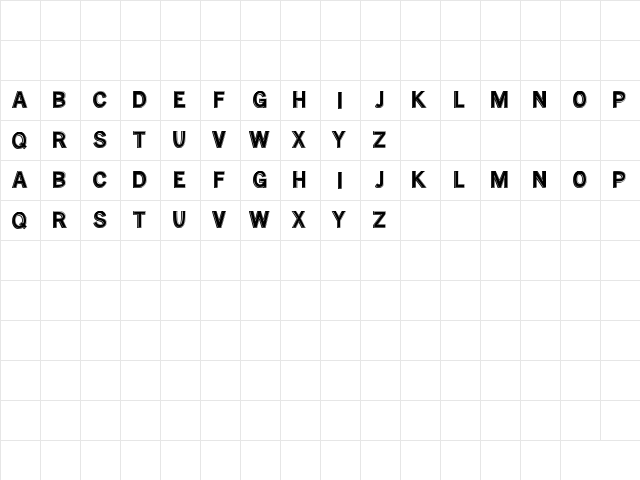
MTF Base Outline Regular
Design Context for MTF Base Outline Typeface
MTF Base Outline brings ornamental detail and strong personality to headlines and identities, where visual impact matters more than quiet functionality.
Font Pairing: Pair with a clean neutral sans-serif for body copy to let MTF Base Outline's character lead without overwhelming the composition.
Pro Tip: Treat MTF Base Outline as the centrepiece of your typographic hierarchy. One strong heading set in a decorative face can carry an entire layout.